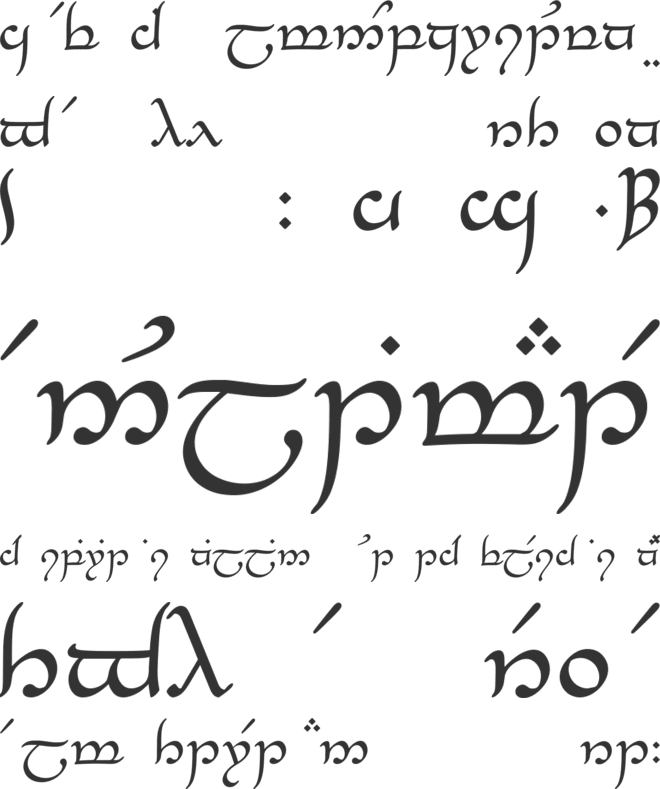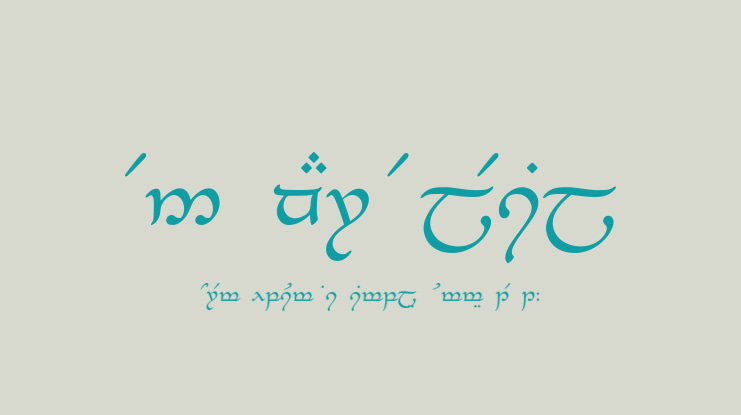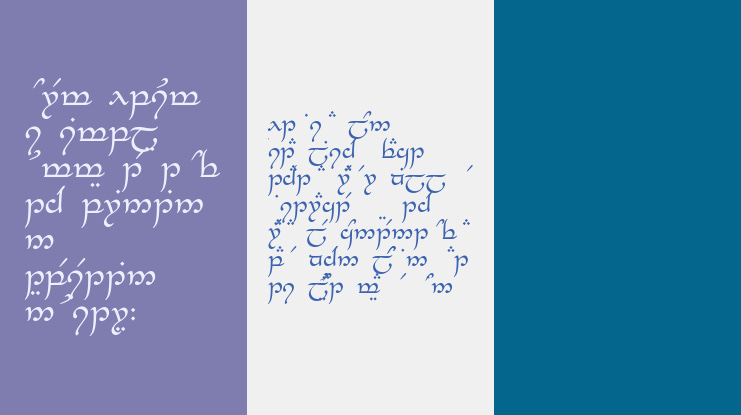
Tengwar-Elesil Font Family
Finally, after some months I've finished my work on a fully working font in Tengwar, that works without a generator and for all programs, like word, powerpoint and so on. Again I've taken the letters from my former font the Tengwar-Eldanaro, which got its letters from the Tengwar Annatar. The Tengwar-Elesil are the font, that is now capable to be used with elvish. It's the first Tengwar font, that is fully functional and 100% correct in terms of letters. When you know the system behind the font, to do so you must read the READ_ME file, you can easily write in Quenya, and every elf from Elrond to Galadriel will understand what you mean.